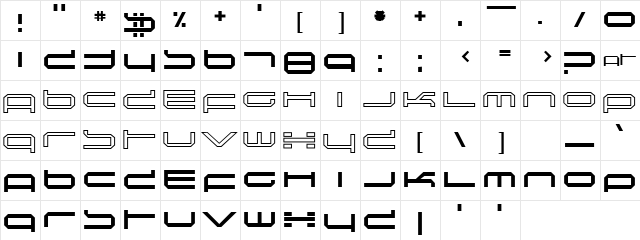
Induction Normal Font Preview
Induction Normal
Design Context for Induction Typeface
Induction takes a measured approach to typography — its balanced proportions and neutral character make it a reliable workhorse for both digital and print work.